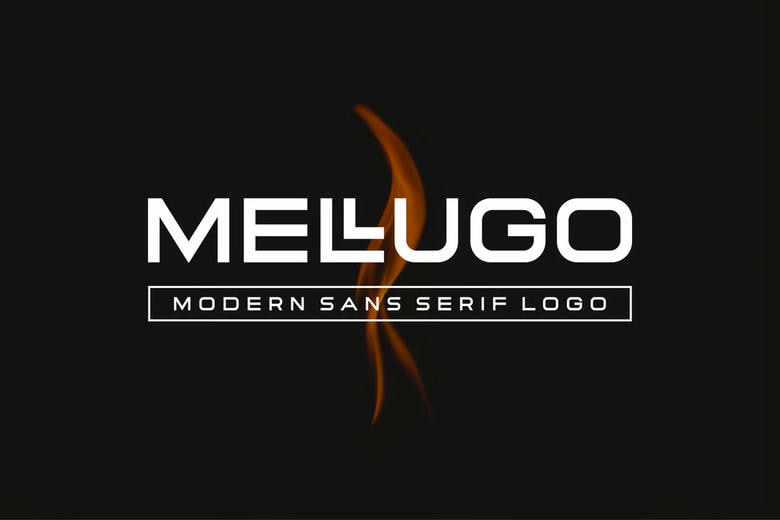
Mellugo Font
Mellugo is a modern sans-serif logo font with a bold and authentic look. It works well for branding projects such as logos, esports, and more. This font stands out in many different settings.
Mellugo Modern Sans Serif Logo Font